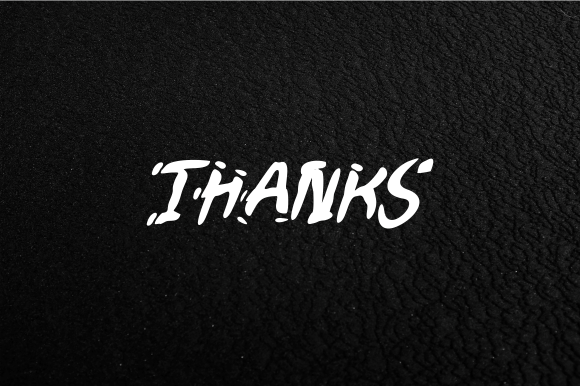
Introduction to Kechelup Font
Remember that moment when you finally found the perfect design element to elevate your creative project? The one that made everything fall into place and brought your idea to life? For designers, discovering a high-quality font like the Kechelup Font can be that game-changing moment. This fun and casual handwritten font is a treasure trove of creativity, perfect for cartoon-related designs, children’s games, and more.
As a valuable design resource, the Kechelup Font offers a transparent background that allows for seamless integration with your design. With a free download available, you can instantly access this versatile font and start experimenting with new ideas. Whether you’re working on a personal project or a commercial design, the Kechelup Font is sure to bring a lovely touch to your creations.
What sets the Kechelup Font apart is its unique blend of style and functionality. With its high-quality design, it’s perfect for a wide range of creative projects, from digital art to print materials. So why wait? Download the Kechelup Font today and unlock a world of creative possibilities.
Key Features of Kechelup Font
- Designed with a modern aesthetic, the Kechelup Font is suitable for various design applications.
Honest Review: Kechelup Font
As a designer, I’m always on the lookout for high-quality design resources to elevate my creative projects. Recently, I stumbled upon the Kechelup Font, and I’m excited to share my thoughts on this intriguing find.
Here are the things that work well for me: ✨
- Unique and quirky design aesthetic that adds a touch of personality to my projects
- High quality, transparent background that ensures seamless integration with other design elements
However, I do have some concerns: ⚠️
- The font may not be suitable for formal or corporate projects due to its playful nature
- Some users may find the font’s characteristics too bold or overwhelming
Overall, I think the Kechelup Font is a great addition to any designer’s toolkit, especially for creative projects that require a touch of whimsy. With its unique design and high-quality features, it’s definitely worth considering for your next design endeavor.
How to Use Kechelup Font
The Kechelup Font is a high-quality design resource ideal for creative projects that require a unique and eye-catching look. With a transparent background, this font is perfect for adding a touch of elegance to your designs.
Tips for Getting the Most Out of Kechelup Font
To get the most out of the Kechelup Font, experiment with different font sizes, colors, and combinations to find the perfect look for your design.
The Kechelup Font is ideal for a variety of creative projects, including:
- Poster design